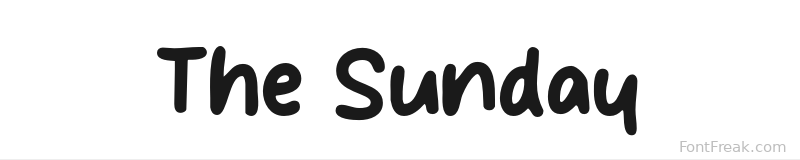
The Sunday
About The Sunday
The Sunday font by MJType is a charming display typeface that captures a playful yet elegant aesthetic. This handwritten style offers a unique blend of casual and refined elements, making it perfect for a variety of creative projects. The strokes are moderately thick with a consistent weight, providing good legibility while maintaining a friendly vibe. The letterforms exhibit a slight contrast, enhancing their visual appeal, and the spacing is well-balanced, ensuring that each character stands out without feeling overcrowded.
This font shines in various applications, particularly in wedding invitations where its warm, inviting style adds a personal touch. It is also an excellent choice for restaurant menus, helping to create a cozy and welcoming atmosphere. Additionally, The Sunday font works beautifully on greeting cards, ensuring your messages resonate with a heartfelt sentiment. For content creators, it can elevate social media graphics, giving them an eye-catching and distinctive look that draws attention.
The target audience for The Sunday font includes graphic designers looking for versatile typefaces, small business owners aiming to establish a memorable brand identity, and content creators who want to enhance their visual storytelling. Its friendly demeanor and artistic flair make it suitable for anyone wanting to make a lasting impression.
What sets The Sunday font apart is its ability to blend playfulness with elegance, making it a versatile option for both casual and formal designs. The Sunday font free download allows users to incorporate this delightful typeface into their projects without any cost, making it an accessible choice for all types of creatives. Whether you're designing invitations or crafting branding materials, The Sunday font is sure to bring a unique and inviting touch to your work.